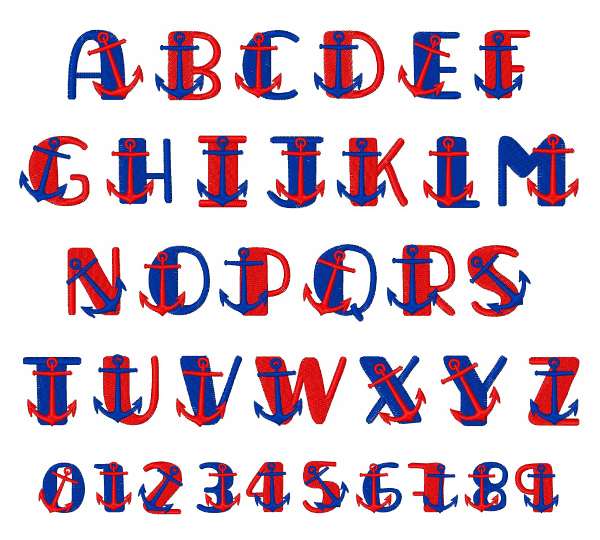
Finding The Perfect Nautical Font For Free
Are you a fan of the nautical theme? Whether you are designing a logo for a company, a website, a book, or even a greeting card, nautical fonts can help you get the perfect look. But why spend money when you can get the same quality of fonts for free? In this article, we’ll be discussing the best free nautical fonts that you can use without spending a dime.
1. Sea Captains
Sea Captains is a great free nautical font that you can use with confidence. This font is inspired by the classic sailor’s font, and it has a vintage look that is perfect for a logo or a website. The font contains both upper and lower case letters, as well as numbers, symbols, and punctuation marks. It’s also available in both TTF and OTF formats, so you can use it on both Mac and Windows computers.
2. Old Captain
Old Captain is another great nautical font that you can get for free. This font is a bit more modern than Sea Captains, but it still has a vintage look that is perfect for a nautical-themed design. The font contains uppercase and lowercase letters, as well as numbers, symbols, and punctuation marks. Old Captain is available in both TTF and OTF formats, so you can use it on both Mac and Windows computers.
3. Nautical Flags
Nautical Flags is a great font for anyone looking for a more modern nautical font. This font is based on the classic maritime flag alphabet, and it contains upper and lower case letters, as well as numbers, symbols, and punctuation marks. Nautical Flags is available in both TTF and OTF formats, so you can use it on both Mac and Windows computers.
4. Sailor’s Delight
Sailor’s Delight is a great free nautical font that is perfect for a logo or a website. This font is inspired by the classic sailor’s font, and it has a vintage look that is perfect for a nautical-themed design. The font contains both upper and lower case letters, as well as numbers, symbols, and punctuation marks. Sailor’s Delight is available in both TTF and OTF formats, so you can use it on both Mac and Windows computers.
5. Nautical Star
Nautical Star is a great nautical font for anyone looking for a more modern font. This font is inspired by the classic maritime flag alphabet, and it contains upper and lower case letters, as well as numbers, symbols, and punctuation marks. Nautical Star is available in both TTF and OTF formats, so you can use it on both Mac and Windows computers.